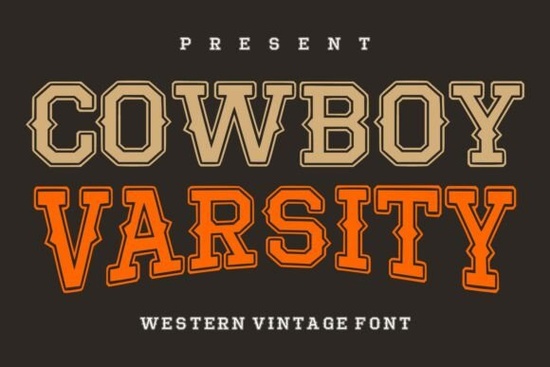
If you've been searching for a typeface that mixes western grit with that classic college letterman look, the Cowboy Varsity Font is worth a close look. It combines bold slab-style letterforms with layered outline details, giving you a retro display font that works across logos, apparel, posters, packaging, and branding projects. Whether you run a print-on-demand shop or design for clients who love that nostalgic American aesthetic, this typeface fills a gap that's hard to find elsewhere.
What Makes Cowboy Varsity Font Different From Other Western Typefaces?
A lot of western fonts lean heavily on ornamental serifs or exaggerated curves. That can look great in isolation but limit your flexibility in real projects. Cowboy Varsity Font takes a different approach. It pairs thick, sporty outlines with a rugged western personality, which means it holds up well at large sizes on posters and banners without feeling overly decorative.
The layered outline style also makes it easier to work with in design software. You can stack color fills behind the outlines or leave just the stroke for a more minimal look. That kind of versatility matters when you're producing merchandise or working across different media.
Who Is This Font Best Suited For?
This typeface appeals to a pretty wide range of creatives. Here are some of the people who tend to get the most out of it:
- Print-on-demand sellers designing t-shirts, hoodies, and hats with a rodeo, ranch, or Americana theme
- Logo designers working with western-themed brands, BBQ restaurants, craft breweries, or outdoor lifestyle companies
- Crafters making greeting cards, scrapbook pages, or party decorations with a country or vintage flair
- Small business owners who need bold, readable signage or packaging that stands out on a shelf
- Social media creators looking for an attention-grabbing display font for thumbnails and promotional graphics
Because it blends the cowboy aesthetic with a varsity lettering style, it fits naturally into projects that need both an athletic and western feel. Think rodeo event posters, football team branding with a ranch twist, or vintage-style badges for outdoor brands.
How Does It Compare to Other Display Fonts?
If you've browsed bold display fonts before, you know that many of them rely on sheer weight to make an impact. Cowboy Varsity Font does deliver boldness, but the outline layering adds a dimension that flat heavy fonts often lack. It gives you that strong presence on a design without making the text feel like a wall of ink.
For designers who like a worn, textured look, pairing this font with distressed creative display fonts in the same project can create a nice contrast. Use the varsity outlines for headlines and a rougher texture font for supporting text to build visual hierarchy.
What Design Projects Work Best With This Font?
Cowboy Varsity Font shines in projects where the text needs to do heavy lifting visually. It's not a font for body copy or long paragraphs it's built for short, punchy headlines and display text.
Here are specific use cases where it performs well:
- T-shirt designs Western-themed apparel is a strong niche on platforms like Etsy and Amazon Merch. This font reads clearly on fabric and looks great in single-color prints.
- Event posters Rodeos, county fairs, country music shows, and western-themed parties all benefit from this kind of bold, vintage display type.
- Logo work For brands that want a rugged yet sporty identity, this font gives you a strong starting point for wordmarks.
- Badges and patches The layered outline style translates well to embroidered or printed badge designs.
- Packaging and labels Hot sauce bottles, craft jerky bags, BBQ rub labels products with an American outdoor identity pair naturally with this aesthetic.
Does It Work Well With Craft Cutting Machines?
For crafters using Cricut or Silhouette machines, the bold outlines of Cowboy Varsity Font make it a practical choice for vinyl cuts, iron-on transfers, and stencil projects. The clean edges and distinct letter spacing reduce the chance of cutting errors, and the outline style means you can layer different vinyl colors for a multi-tone effect.
Just keep in mind that very small sizes may lose some of the outline detail. For best results, use it at medium to large scale where the lettering structure stays crisp and readable.